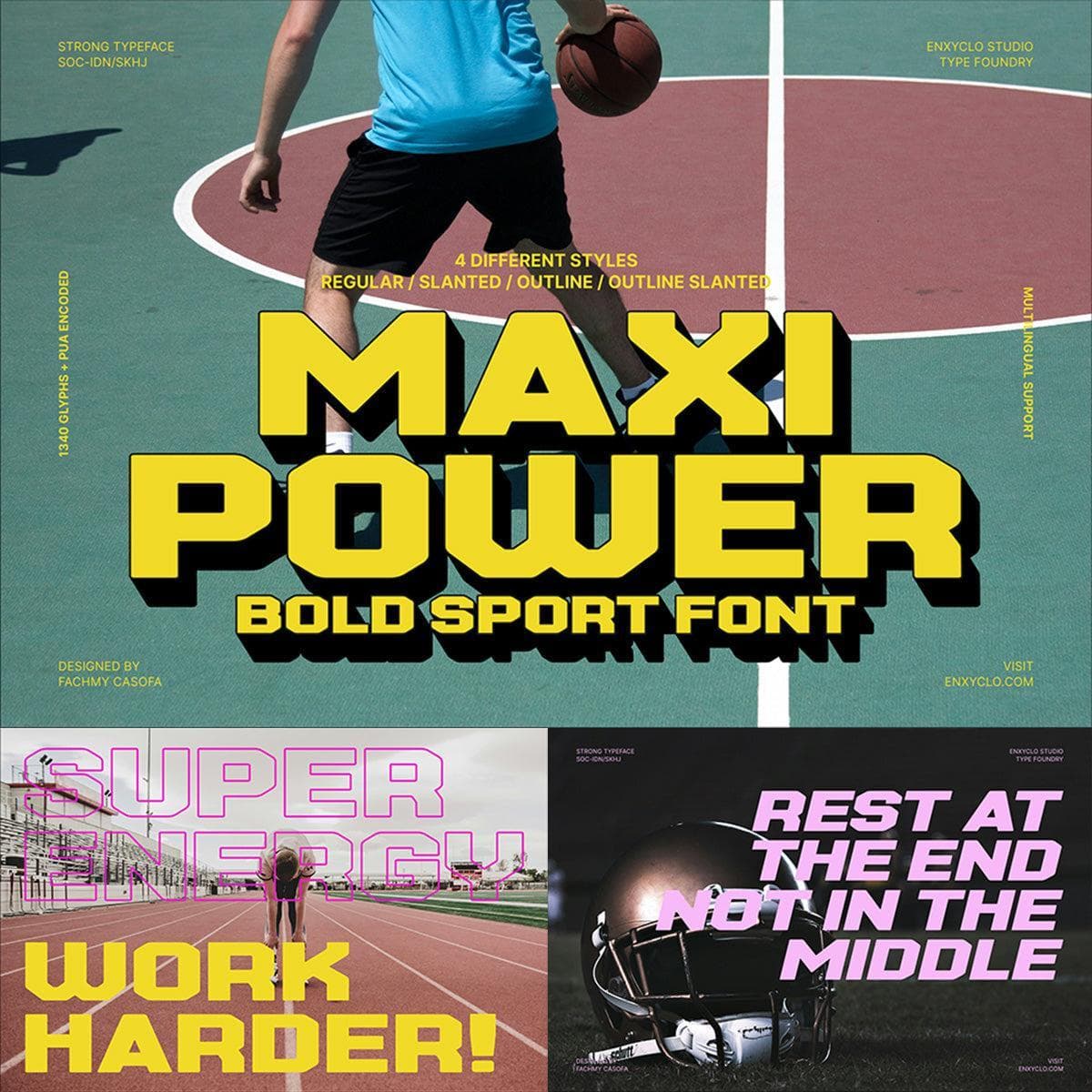
<p><strong>MAXI POWER</strong><em> </em>is a gym sport font. Masterfully designed to become a true favorite, this font has the potential to bring each of your creative ideas to the highest level! It was purposely crafted to be used in large point sizes, although it doesn’t lose its magic in small point sizes. It is perfect for headline, billboard, magazines, website, titles, poster, branding, and logos. No matter the topic, this font will be an incredible asset to your fonts’ library, as it has the potential to elevate any creation. With this beautiful font, absolutely you can make your project stand out from the rest.</p><ul><li><p>4 Style: Regular, Slanted, Outline, Outline Slanted</p></li><li><p>Contains 335 Glyphs for Each Style and 1340 Glyphs for Total</p></li><li><p>Uppercase & Lowercase</p></li><li><p>Numeral, Punctuation & Symbols</p></li><li><p>Multilingual Support</p></li></ul><p></p>